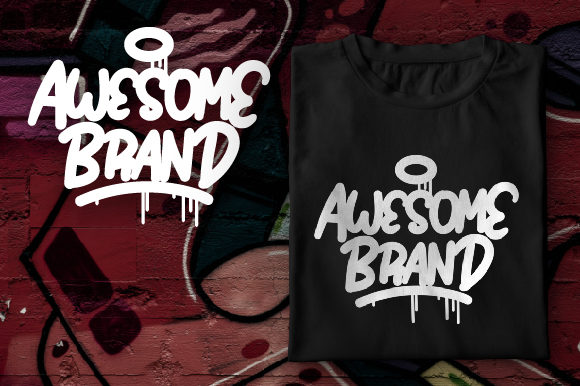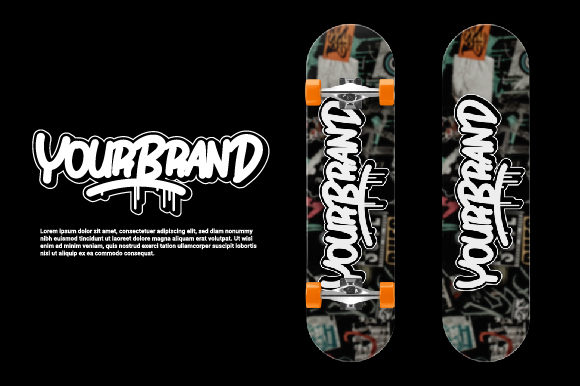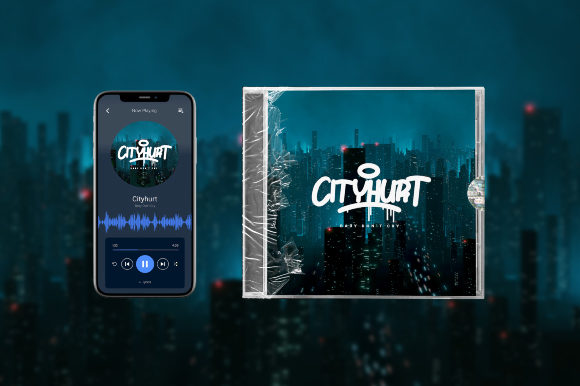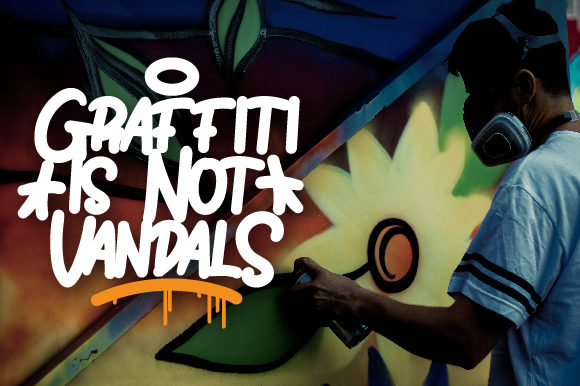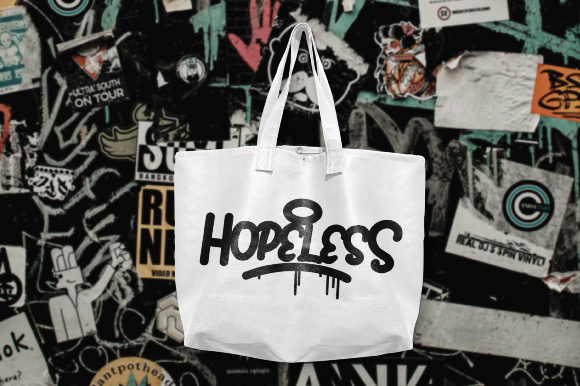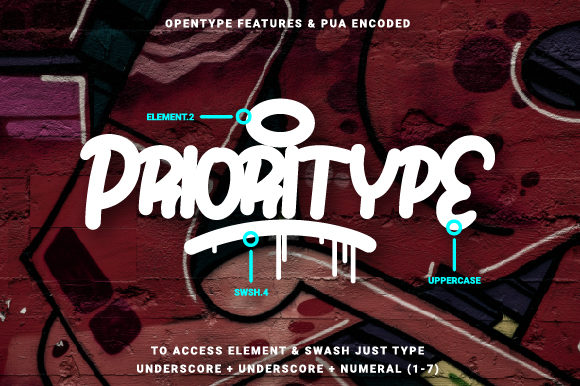
Introduction to Bomb Da Gone Font
Have you ever been working on a creative project, and you’re stuck trying to find the perfect font to give it that extra oomph? That’s exactly what happened to me last week, and I stumbled upon the amazing Bomb Da Gone Font – a game-changer in the world of typography.
With its bold, graffiti-inspired style, this high-quality font is sure to add a touch of nostalgia and personality to any design. Whether you’re a seasoned designer or a hobbyist, the Bomb Da Gone Font is an invaluable resource that’s free to download and customize to your heart’s content. Its transparent background makes it a versatile design element that can be easily integrated into any creative project.
Key Features of Bomb Da Gone Font
- High-quality font design, ideal for creative projects that require a unique touch.
- Features a transparent background, allowing for easy customization and seamless integration with other design elements.
- Unique characteristics include a bold, graffiti-inspired design and a wide range of stylistic alternatives.
- Perfect for use in graphic design, digital art, and other creative projects where a high-quality, custom font is required.
Honest Review: Bomb Da Gone Font
As a designer, I’m always on the lookout for unique and high-quality design resources to elevate my creative projects. Recently, I came across the Bomb Da Gone Font, and I must say, it’s been a game-changer.
What works well about this font is its versatility. ✨ It’s perfect for any project that requires a bold, eye-catching look. The font is available for free download, which is a huge bonus for designers on a budget. The high-quality design is evident in every detail, from the intricate lettering to the transparent background that makes it easy to layer with other design elements.
The Bomb Da Gone Font is a fantastic addition to any design library. ✨ Here are some of its key features:
- High-quality design with intricate details
- Perfect for bold, eye-catching designs
However, ⚠️ the font may not be suitable for projects that require a more subtle or elegant look. Additionally, the font’s boldness may be overwhelming in certain contexts.
Overall, I’m impressed with the Bomb Da Gone Font and would highly recommend it to designers looking for a unique and high-quality design resource.
Getting the Most Out of Bomb Da Gone Font
To get the most out of this font, experiment with different font sizes, colors, and combinations to create a unique visual identity.
Bomb Da Gone Font is ideal for:
Creative projects that require a bold and eye-catching font.
Designs that need a high-quality, transparent background.